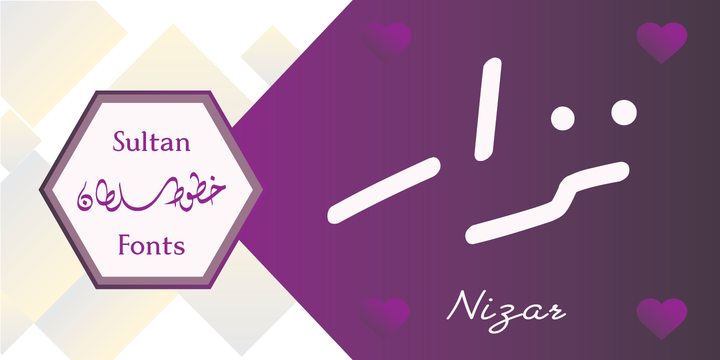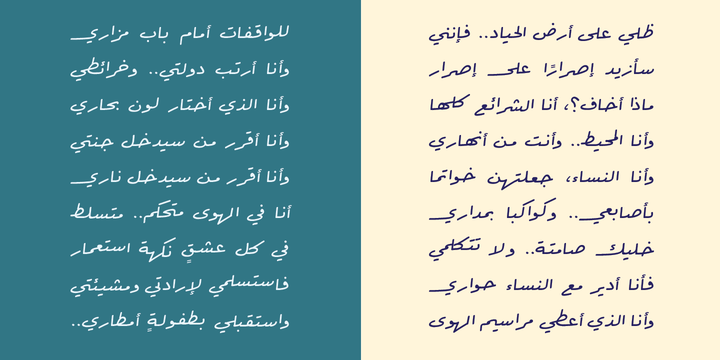
In July 2014, using my light pen, I completed the work in designing the font - Nizar, which was named in honor of the great poet Nizar Qabbani who inspired millions through poetry and prose.
The font depends mainly on the characteristics of the traditional Ruq'ah handwriting, but the spirit of the letters tend to embrace the distinguished style that we knew of the poet in his hand-written poetry books.
Due to the fact that I could not find all the alphabets in the great poets handwriting, I adopted the method of measurement and prediction for structure of the missing letters, Which resulted in a new style of the Ruq'ah Typeface; a closer look at the font highlights the common characteristics of all the usual Ruq'ah writings, which are the height of the character Alef and spaces and formation on the line, the contextual replacement and convergence of when a letter meets another, closed and open letters, letters coming down from the baseline, and the forms of dots.
That been said, hidden touches in the details of Nizar Typeface can be observed, the characters are all dependent on one pen stroke thickness, and are attracted to the baseline as much as possible when vertically and horizontally formed, and the distance between words and lines grows leading to creating both an aesthetic and typographical touch distinguishing this font from the conventional Ruq'ah which can be found in some of my previous Ruq'ah projects.
It is important to mention that after the completion of the Arabic characters and punctuation, I began drawing the Latin alphabets, punctuation and necessary symbols.
I cannot fail to also note that the Arabic characters include the Persian, and the Urdu characters.
This Typeface is fit to be used in lengthy texts, especially in literary works, artistic print, and diverse visual display, giving the design striking features, modernity and distinction.